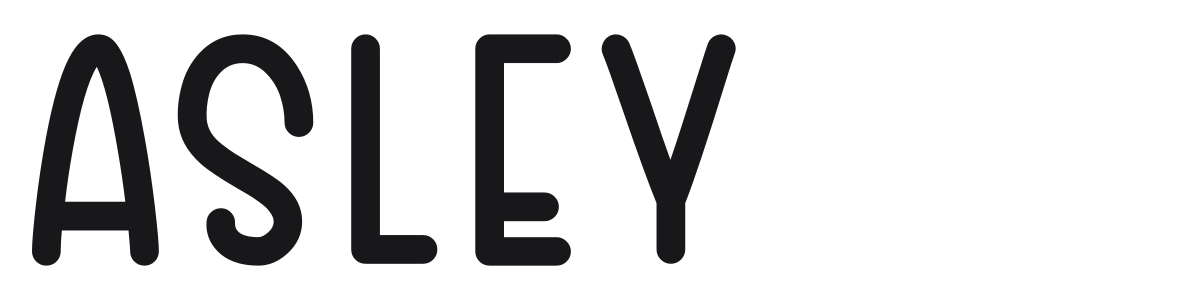
Asley
Asley is a bold rounded sans with chunky, hand-drawn warmth and soft terminal endings. The slightly irregular construction keeps it feeling personal rather than mechanical, sitting somewhere between a casual display face and a crafted sign-painter style. Works well at large sizes for branding, packaging, and anything that needs a friendly tone.